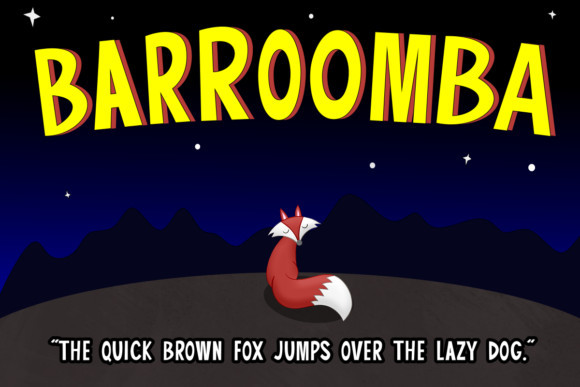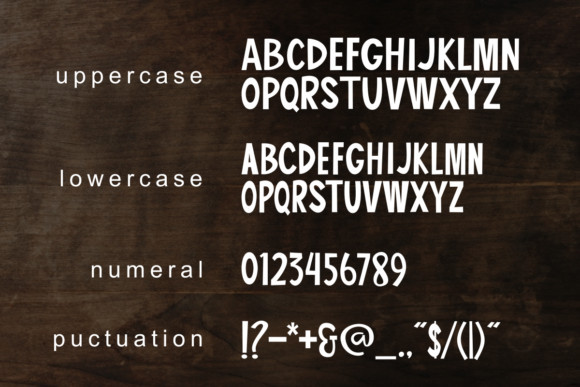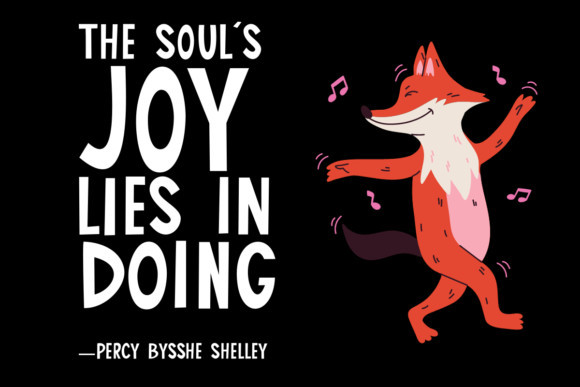
Barroomba Font
Baroomba feels equally charming and elegant. This stunning display font is a stylish homage to classic calligraphy. Whether you’re looking for fonts for Instagram or calligraphy scripts for DIY projects, Baroomba will turn any creative idea into a true piece of art!